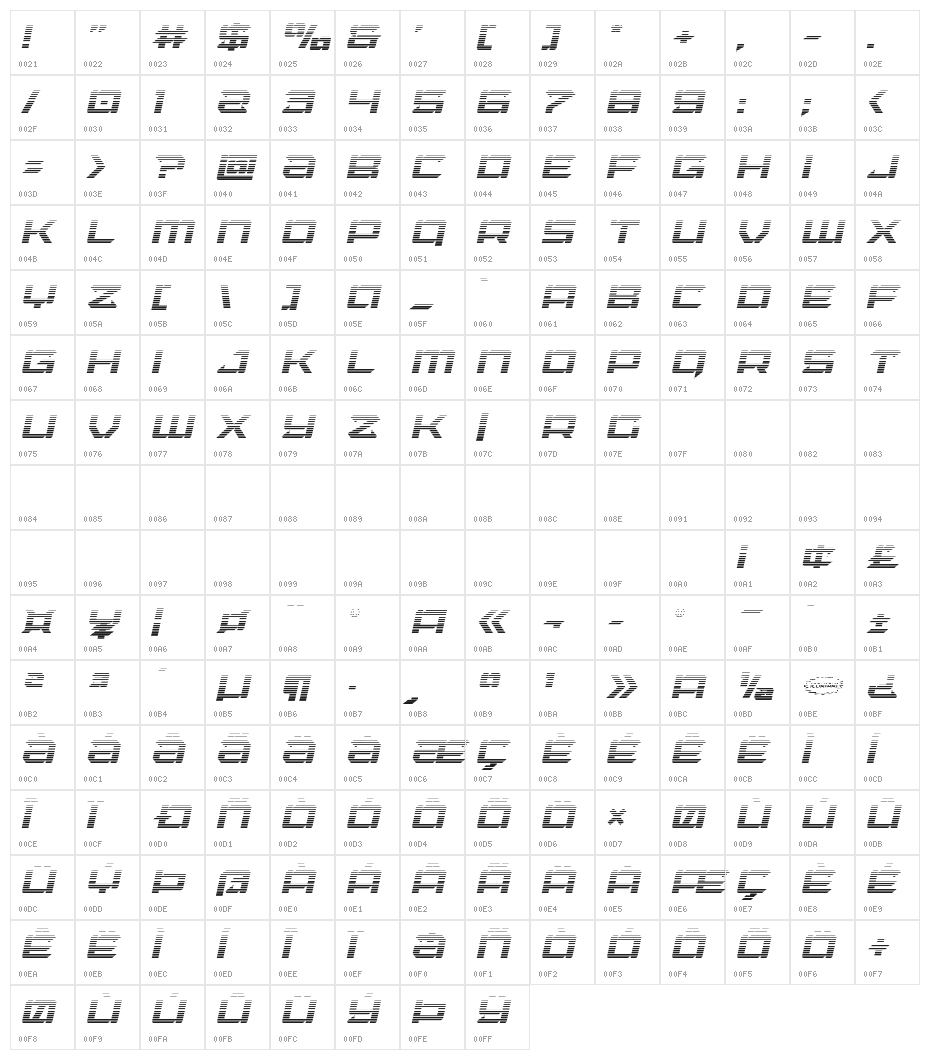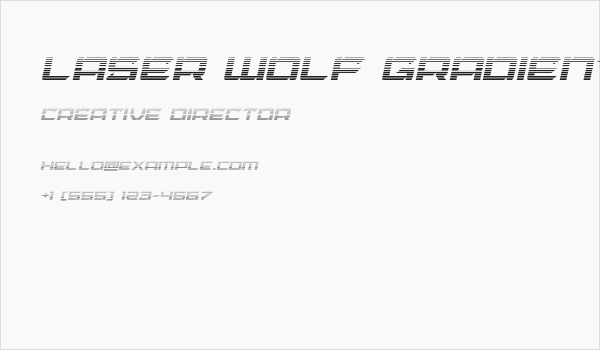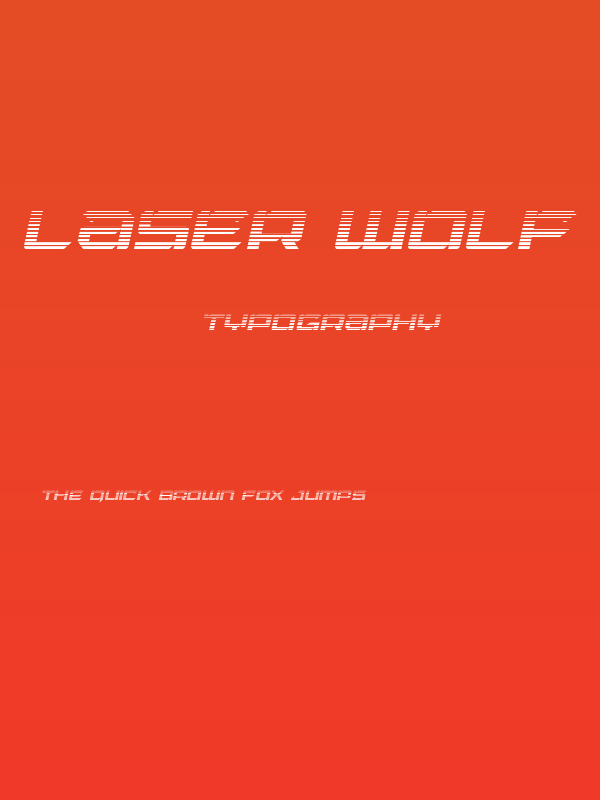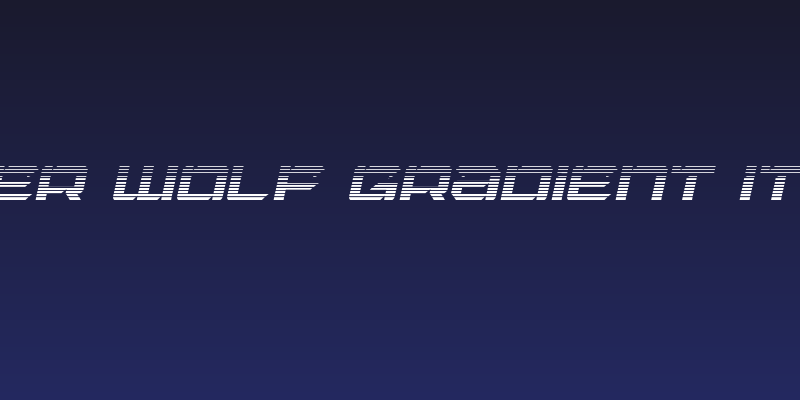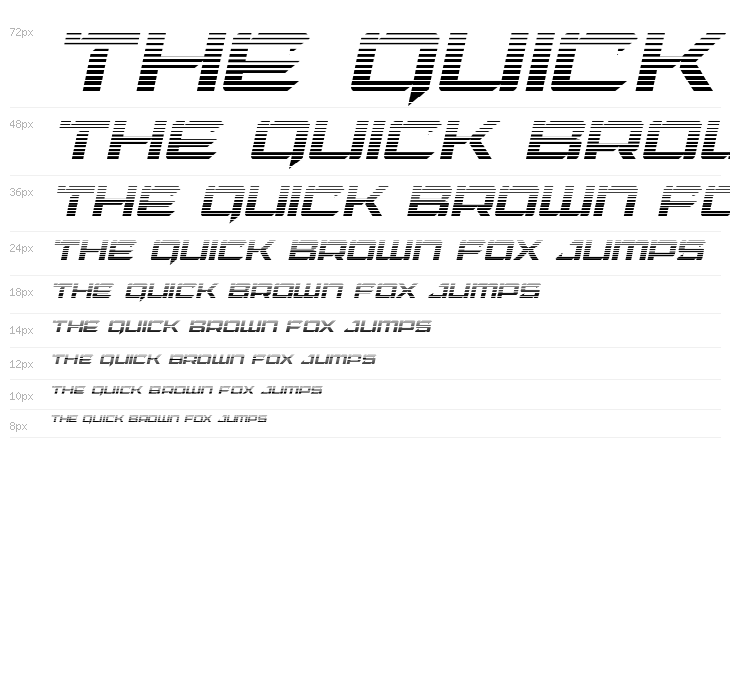
Laser Wolf Gradient Italic Font
Laser Wolf Gradient Italic Description
This font features a futuristic and dynamic design with a distinct italic slant. The characters are composed of horizontal lines that create a gradient effect, giving a sense of movement and speed. The uppercase and lowercase letters maintain a consistent style, while the numerals and special characters complement the overall aesthetic. The font's unique structure makes it stand out, ideal for projects that require a modern and edgy look.
| Proposed Projects | Ideal for sci-fi themed designs, technology branding, video game titles, and modern posters. |